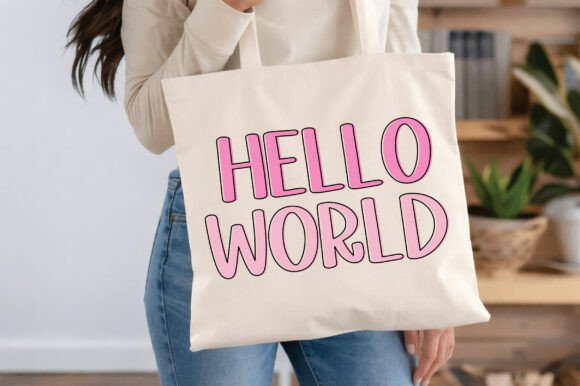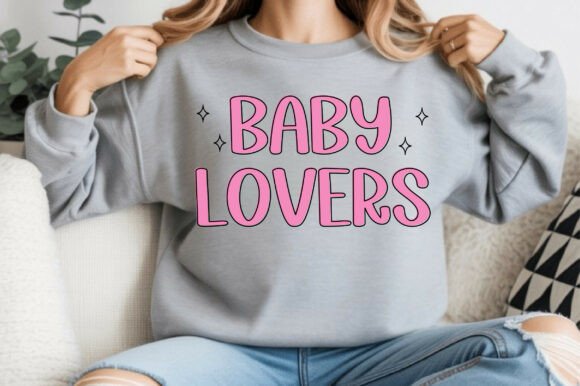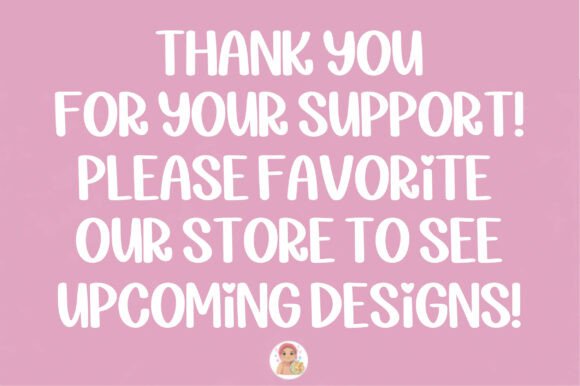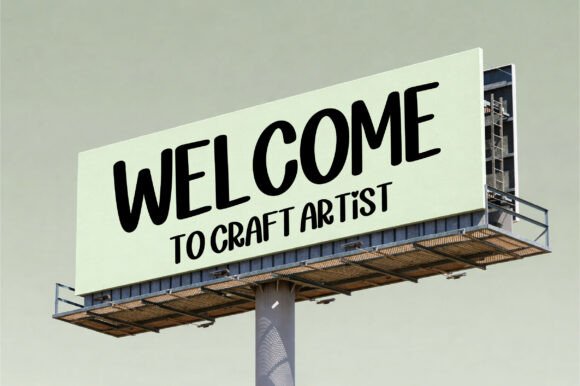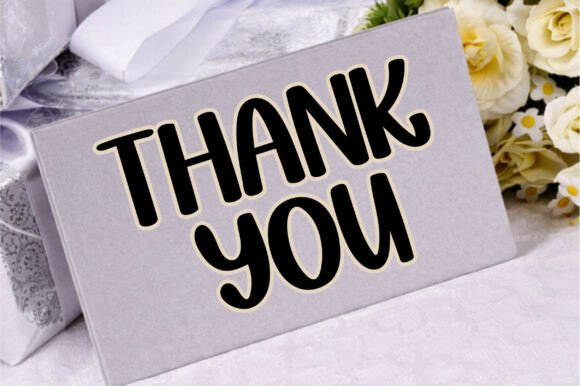
Introduction to Kiddy Pop Sans Font Font
Fonts play a crucial role in design, and the Kiddy Pop Sans Font font is a typeface that brings both character and versatility to any project. Whether you’re working on a branding project, a website, or a print design, the Kiddy Pop Sans Font font offers a unique style that can elevate your work.
Kiddy Pop Sans is a cute and playful handwritten-style display font that brings a fun and happy feel to your designs.
With its soft, rounded letters and colorful personality, it feels like it was drawn by hand with love and creativity Every character has a bouncy, friendly look that makes your text feel alive and full of joy.
Key Features of Kiddy Pop Sans Font Font
Why Choose Kiddy Pop Sans Font Font?
The Kiddy Pop Sans Font font is more than just a typeface – it’s a design tool that helps you communicate your message with style and clarity. Its unique character set and versatile design make it suitable for a wide range of applications, from elegant invitations to bold headlines.
With its carefully crafted letterforms and balanced proportions, the Kiddy Pop Sans Font font ensures readability and visual appeal across all mediums.
What makes Kiddy Pop Sans Font font special?
The Kiddy Pop Sans Font font stands out with its unique design, exceptional readability, and versatility across various design applications.